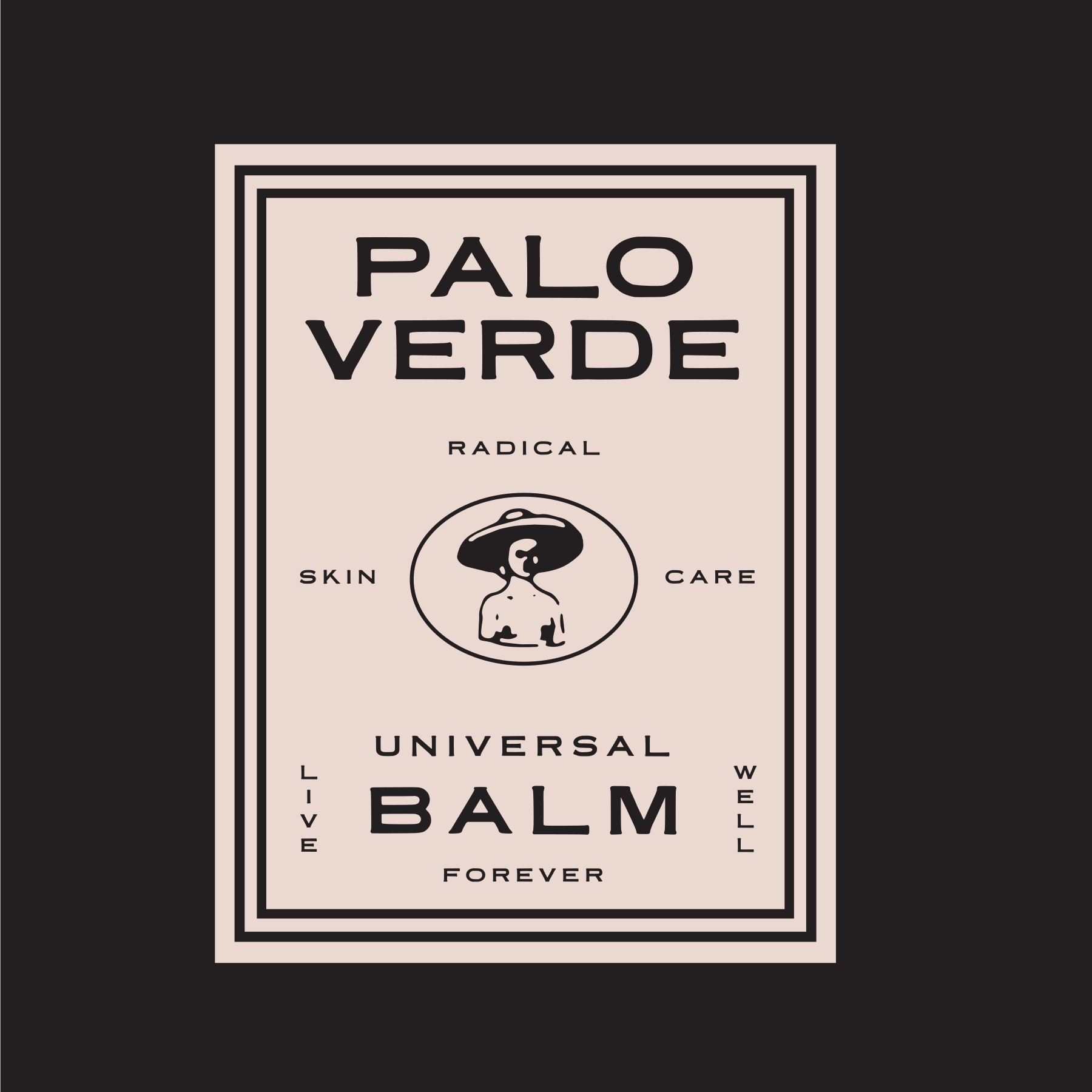
Juniper
AN ENGRAVER'S DREAM. THE SOFTEST AND MOST SUBTLE SPUR GIVES THIS UTILITARIAN FONT A WIDE RANGE OF APPEAL FOR ANY PROJECT. JUNIPER STRIKES A BALANCE BETWEEN THE HIGH AND LOW. A TRUE BEAUTY THAT FITS INTO A WIDE RANGE OF SCENARIOS.